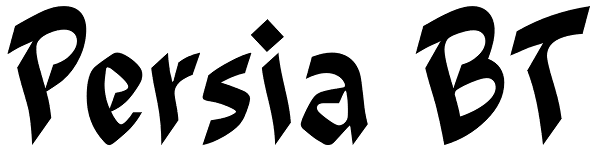
Persia
Masoud Nejabati has drawn upon his capable calligraphic skills to create this typeface. Persia represents his first latin-based design. This gentle and finely rendered script reveals Nejabati's extensive background in Islamic calligraphic art. The...